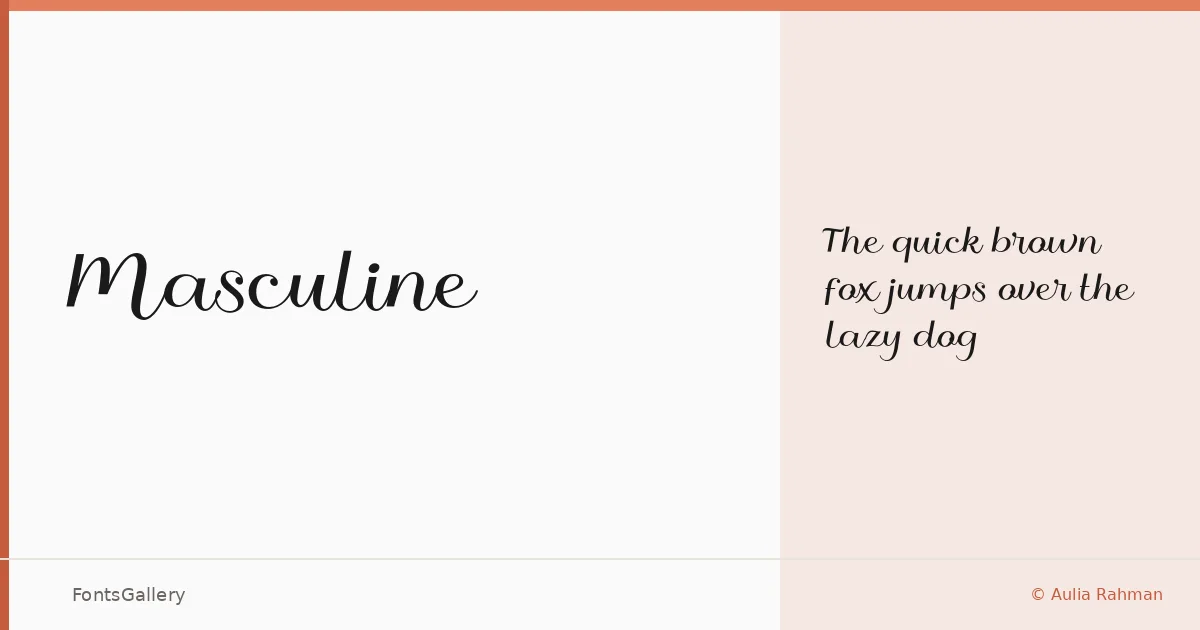
About Masculine Font
There is a confident, unhurried rhythm to this script — the kind that comes from careful attention to stroke contrast and the way each letter exits into the next. Masculine Script Regular is a single-cut Latin script designed by Aulia Rahman, carrying a classic calligraphic sensibility that feels deliberate rather than decorative.
The family sits comfortably in the elegant and romantic end of the script spectrum, with a luxury tone that reads well at display sizes. A single Regular weight is available as an OTF file, so the design relies entirely on the quality of its letterforms rather than a range of weights — and the forms hold up, with the kind of refined swash energy suited to headlines and logotype lockups rather than continuous text.
It earns its place on wedding stationery, invitation cards, and greeting cards, and translates naturally into branding and logo work where a handcrafted, elevated signature feel is the goal. For Latin-language projects, the coverage is solid. It pairs well with Canela or ABC Arizona when you want a contrasting serif presence, and with Helvetica or Etna when a clean, neutral companion is more appropriate — AQUA can bring a softer counterpoint in lighter compositions.